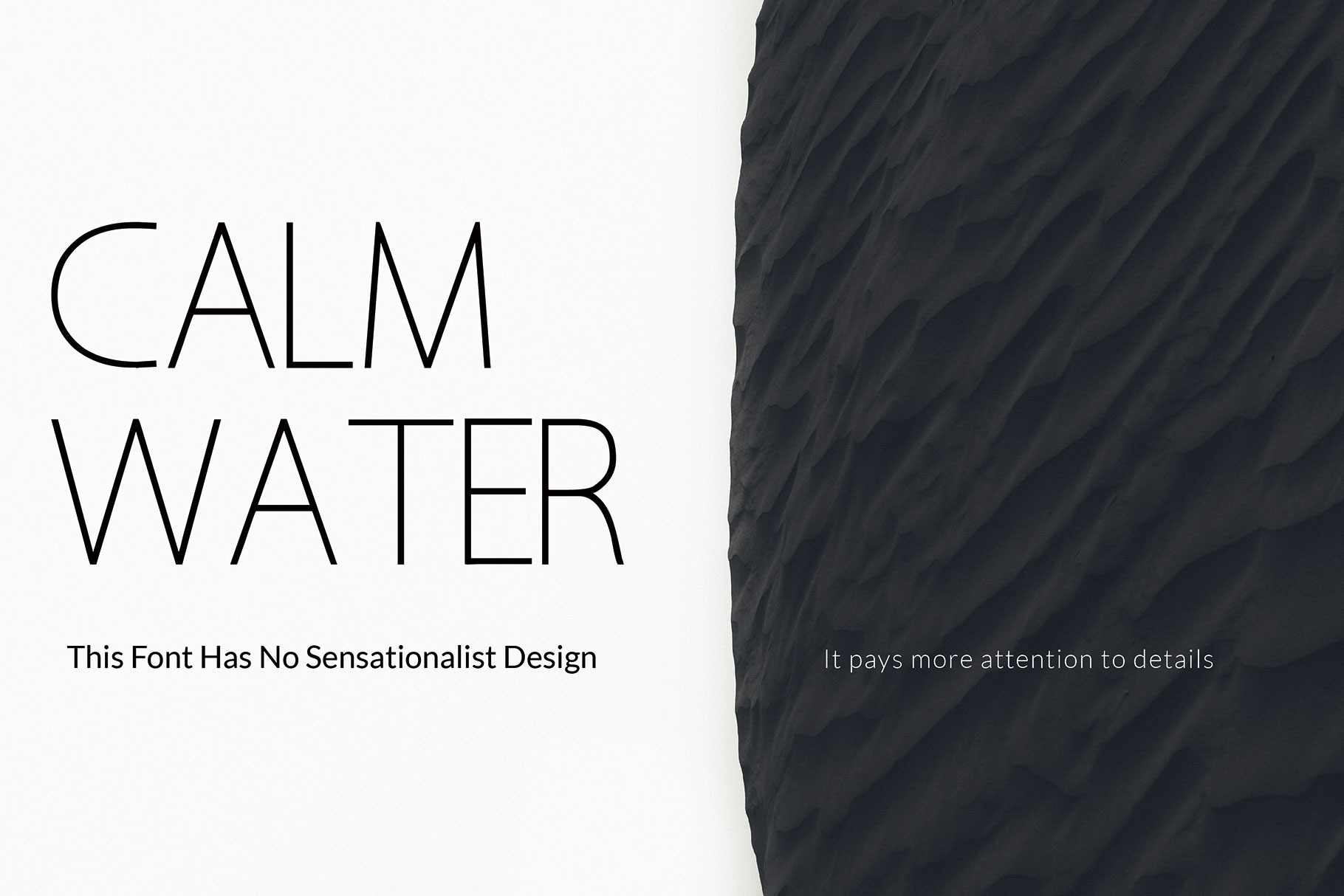
Calm water-Font
This font has no sensationalist design,It pays more attention to details.It's like calm water, It doesn't float much, But it is very beautiful.Suitable for: title,Write an article,Web design,Graphic Design,Posters,Concert,Goods,Magazine, etc.